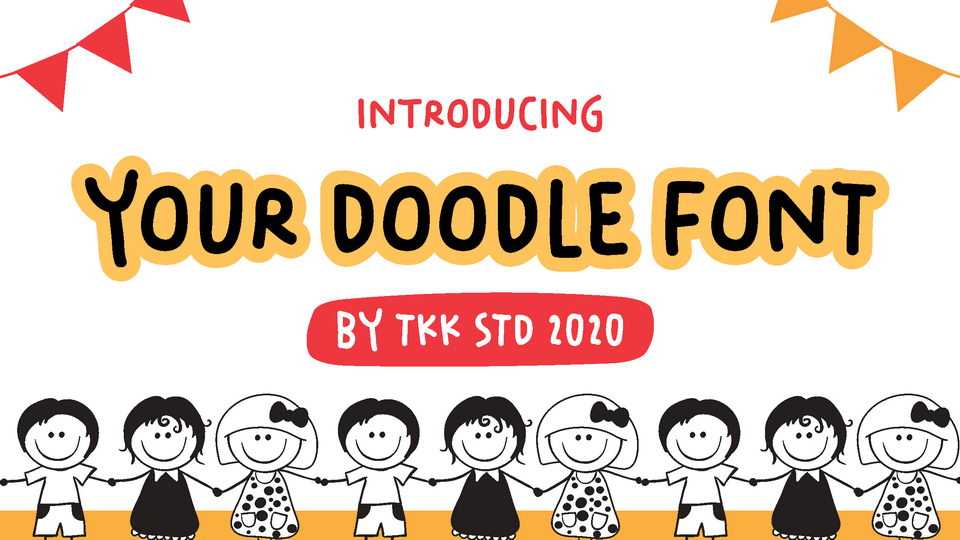
Download Your Doodle font, a simple handwritten typeface. Whenever you put a doodle drawing, you must be in desperate need to find a font that emphasize and complement with your imperfect drawing.